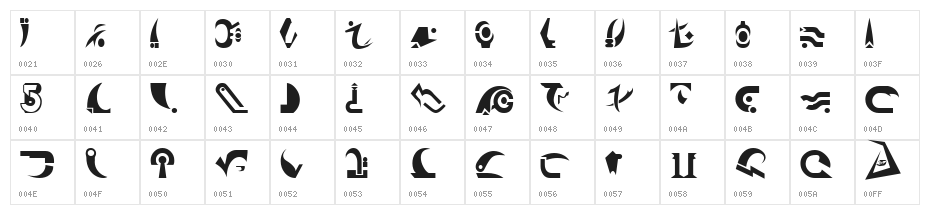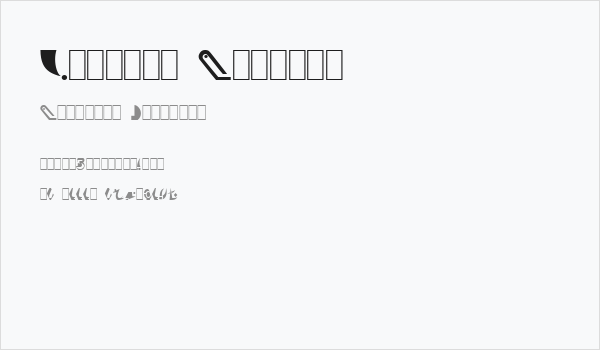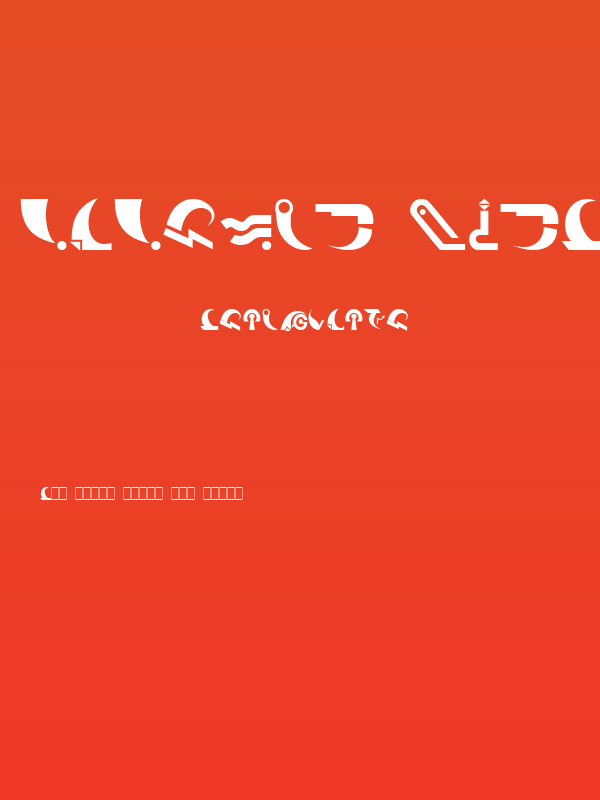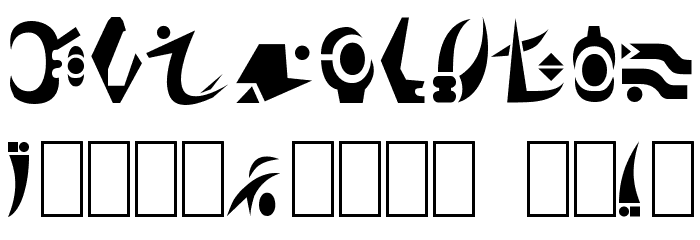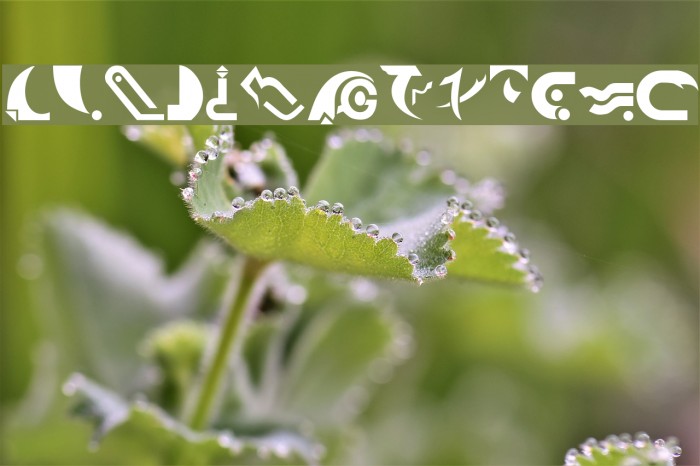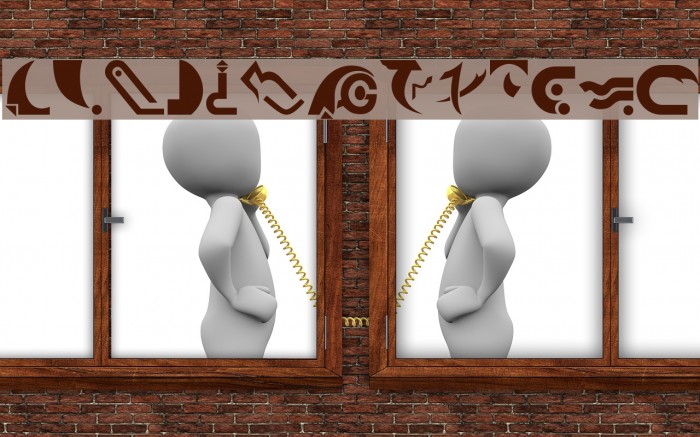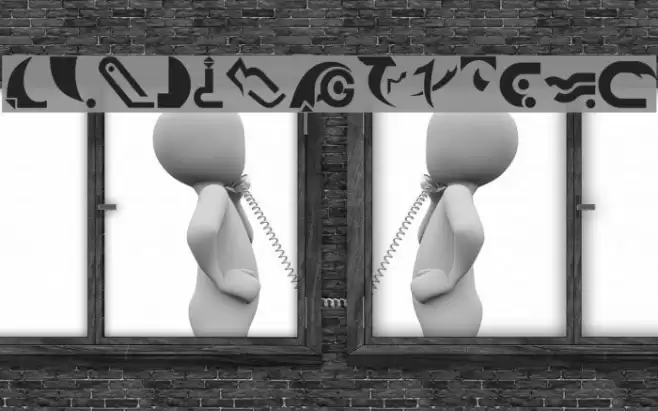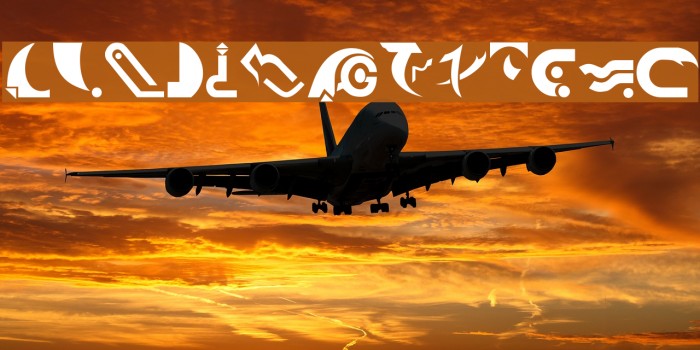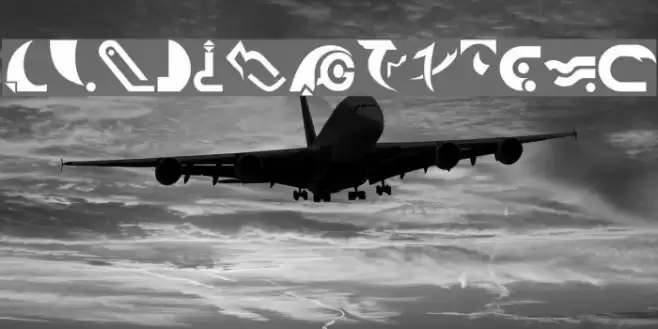
Babylon Centaur Font
Babylon Centaur Description
This font features a highly decorative and abstract design, characterized by its intricate and artistic letterforms. Each character is crafted with unique geometric shapes and curves, creating a sense of movement and fluidity. The design incorporates elements that resemble ancient symbols or hieroglyphs, giving it an exotic and mysterious appeal. The bold and striking appearance makes it ideal for creative and artistic projects where a strong visual impact is desired. The font's style is unconventional and avant-garde, making it suitable for use in modern and experimental design contexts.
| Overall Style | Modern, Avant-garde |
| Use Case | Logos, Posters, Artistic projects |
| Proposed Projects | Ideal for artistic projects, album covers, posters, and branding that require a bold and unique visual identity. |